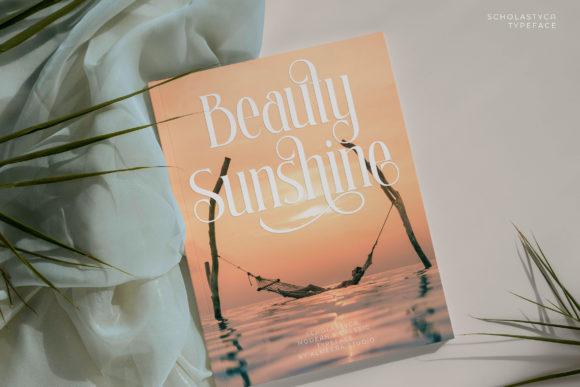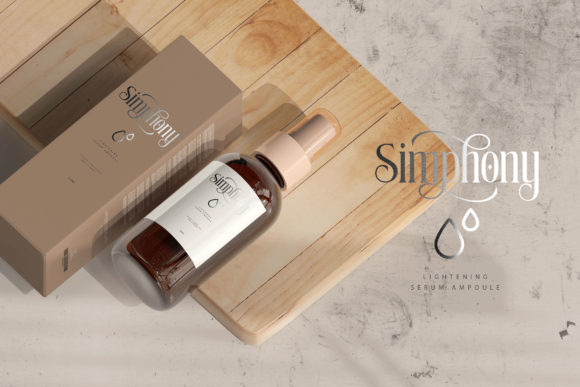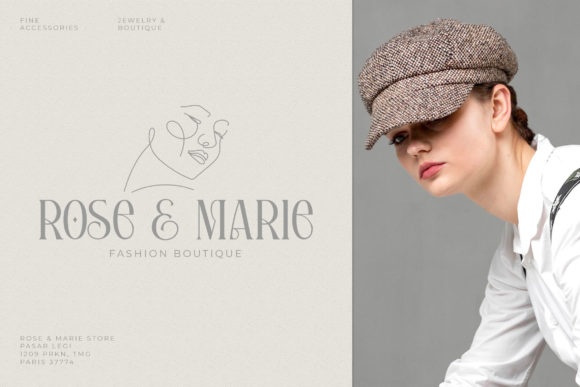
Introduction to Scholastyca Font
Scholastyca is a modern and luxurious serif font.
Not too thin and not too thick, balanced and varied, this font was designed to enhance the beauty of your projects .